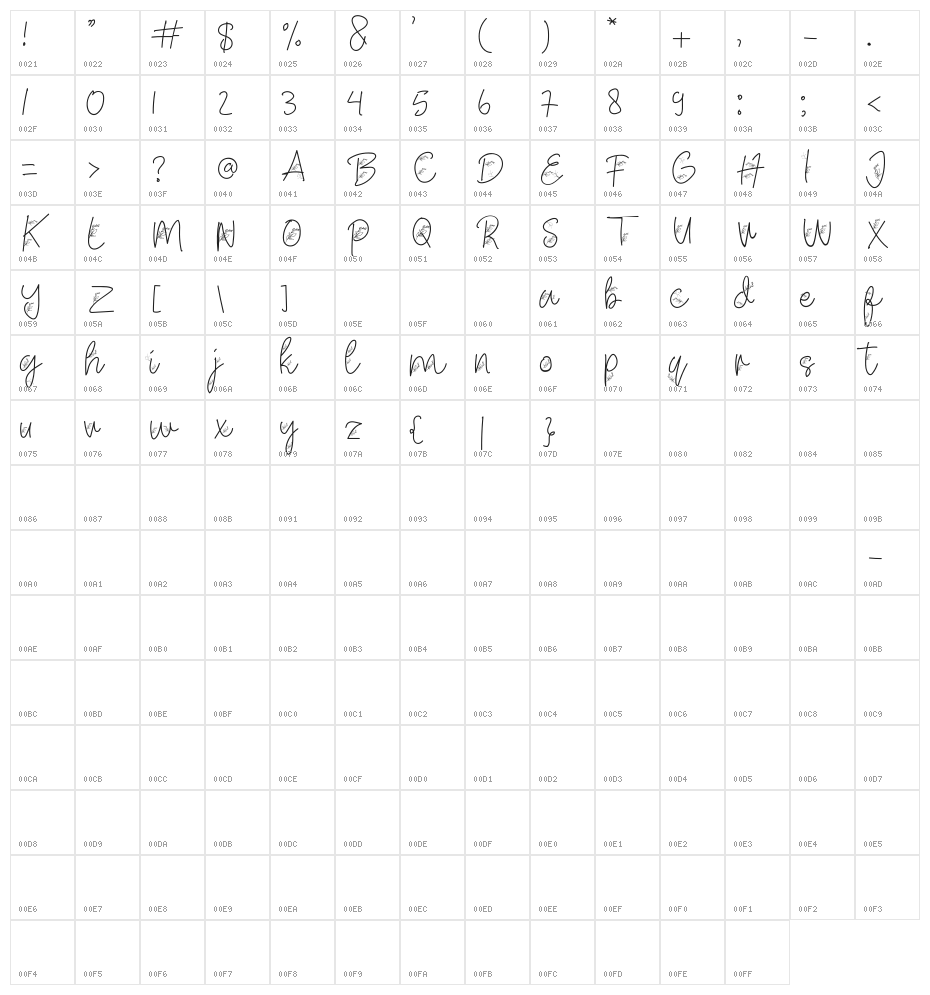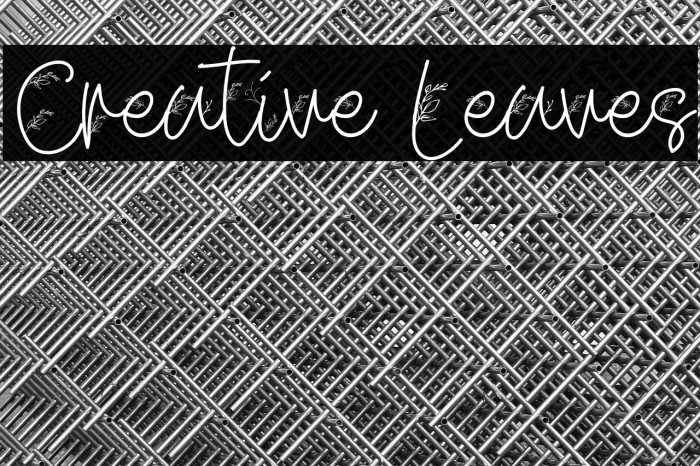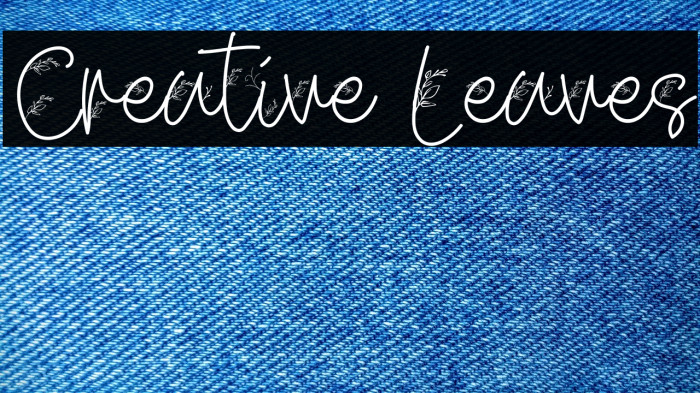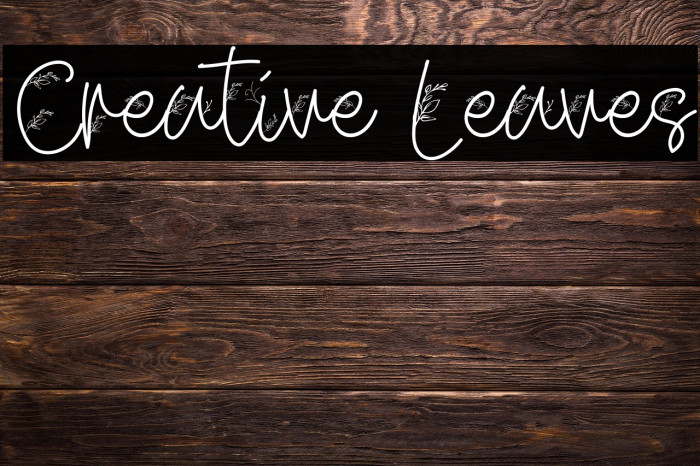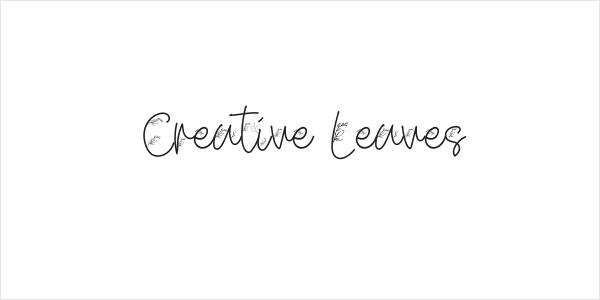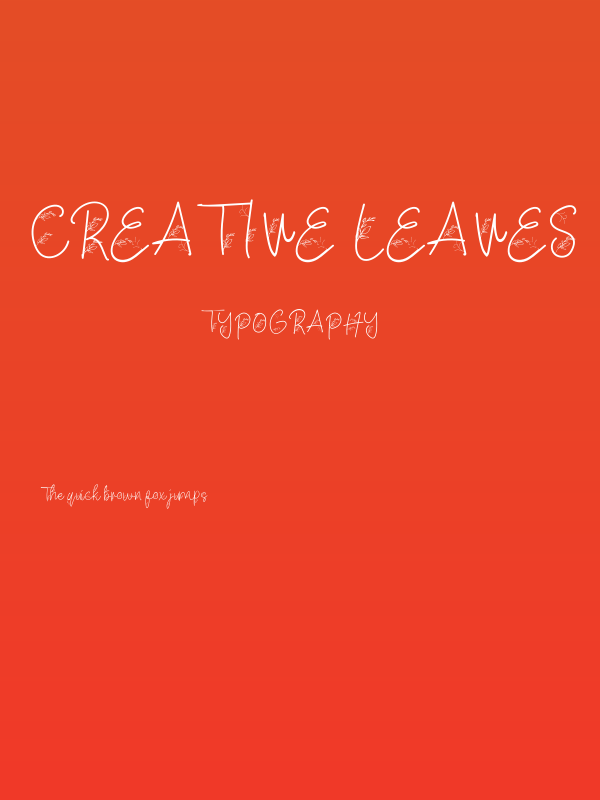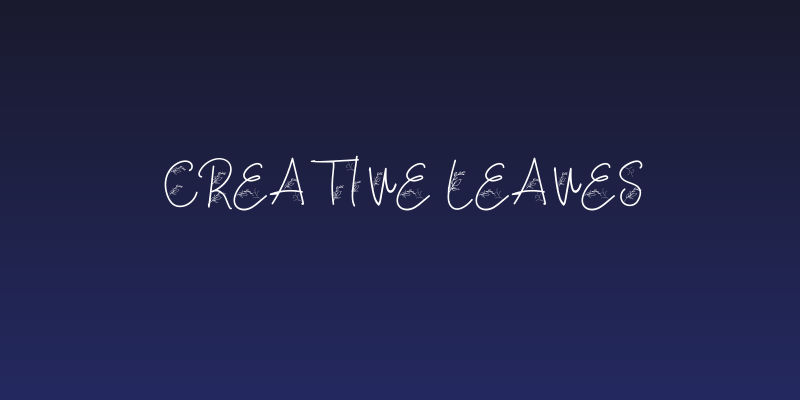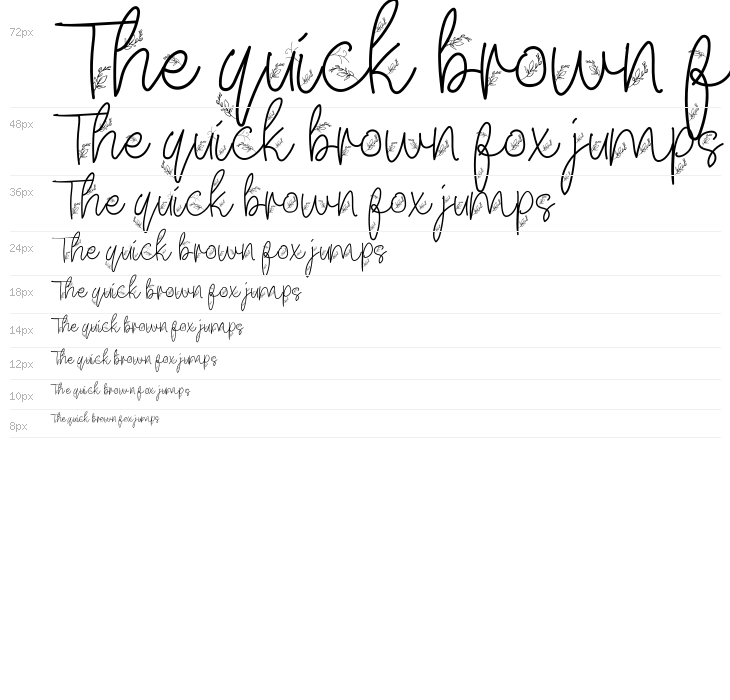
Creative Leaves Font
Creative Leaves Description
This font features a whimsical and artistic design, incorporating delicate leaf motifs within the strokes of each character. The letters are crafted with a flowing, handwritten style that exudes a natural and organic feel. The uppercase and lowercase letters maintain a consistent style, with the leaf embellishments adding a unique decorative touch. The numerals and special characters are also designed with the same playful elegance, making this font ideal for creative projects that require a touch of nature-inspired artistry.
| Use Case | Logos, Invitations, Posters |
| Proposed Projects | Ideal for eco-friendly branding, wedding invitations, greeting cards, and nature-themed posters. |